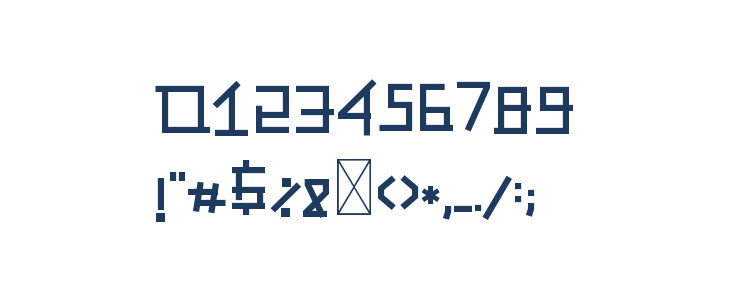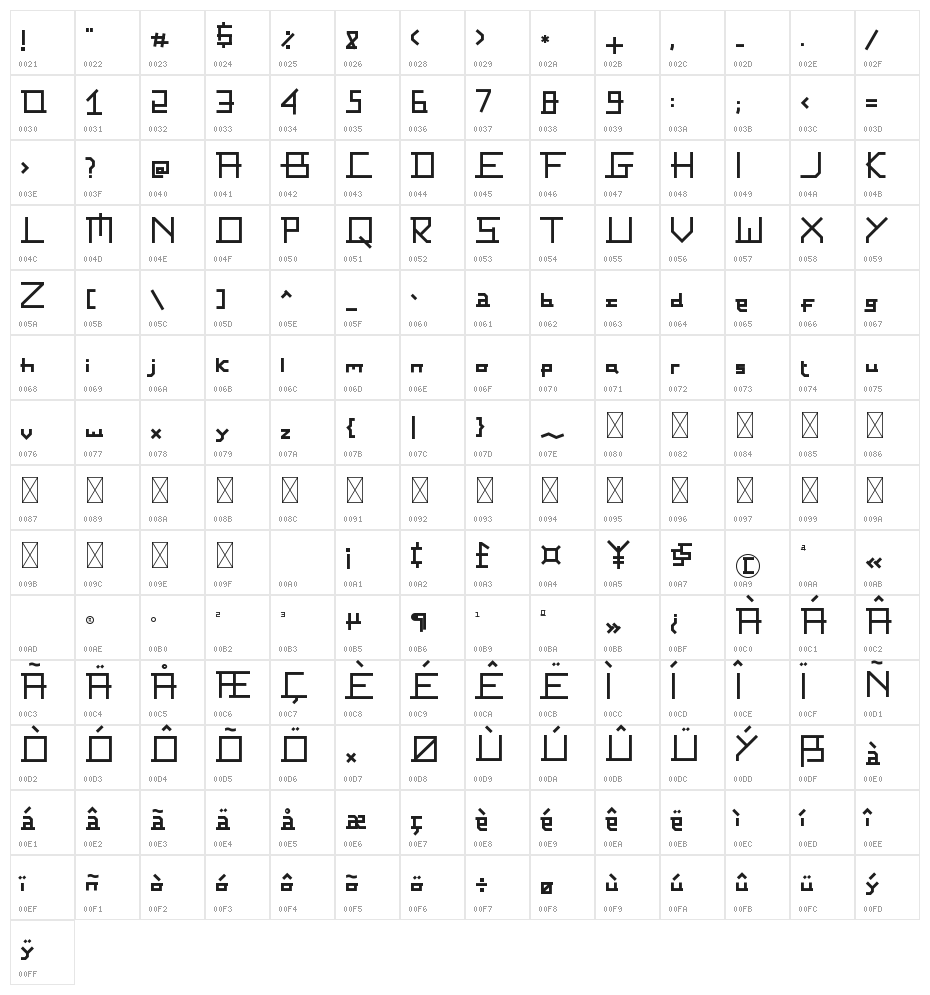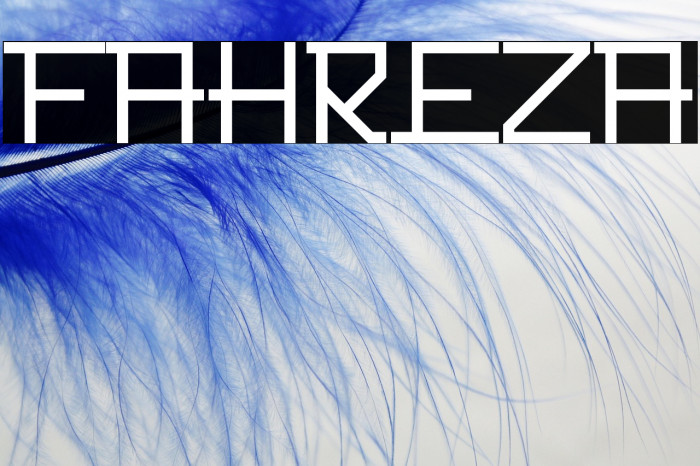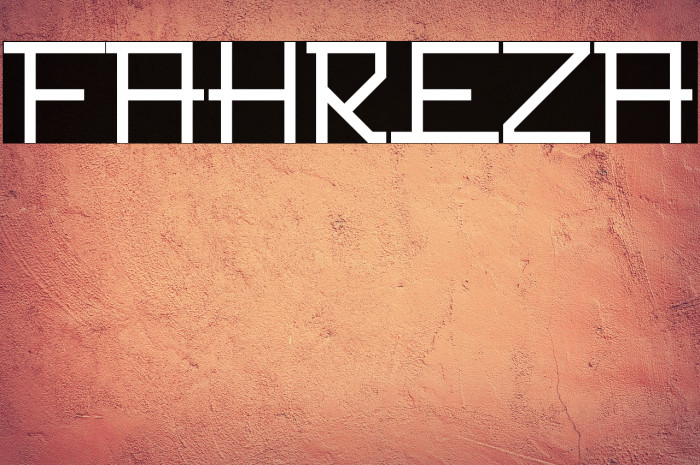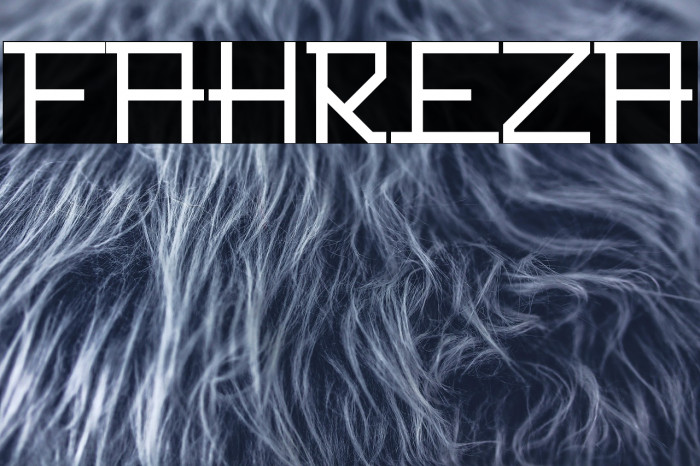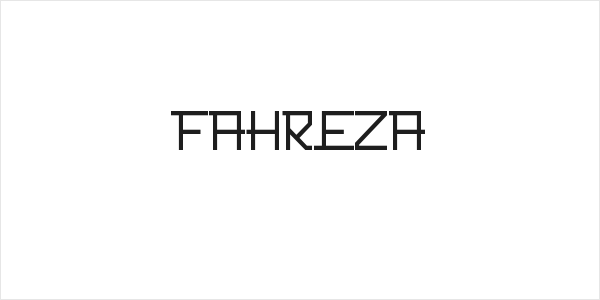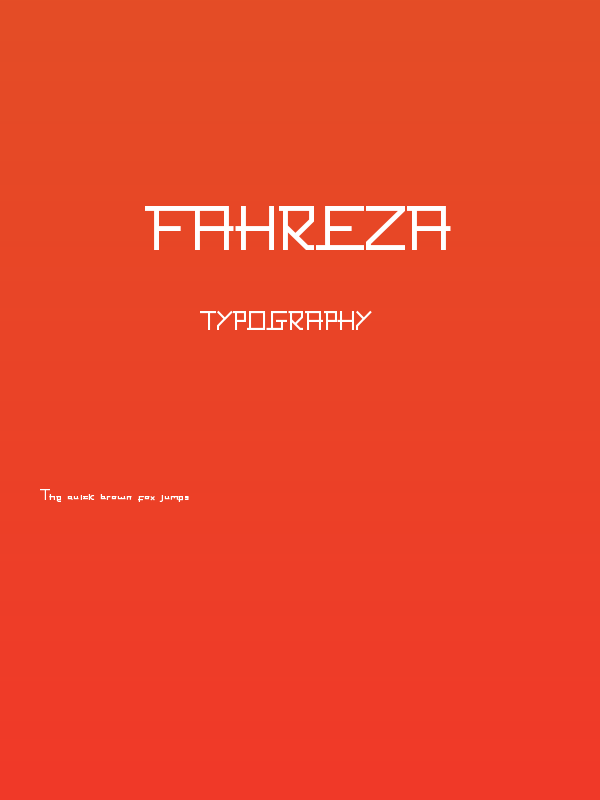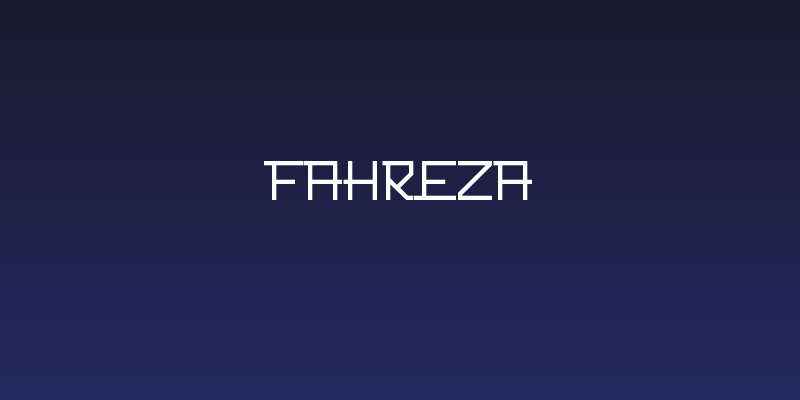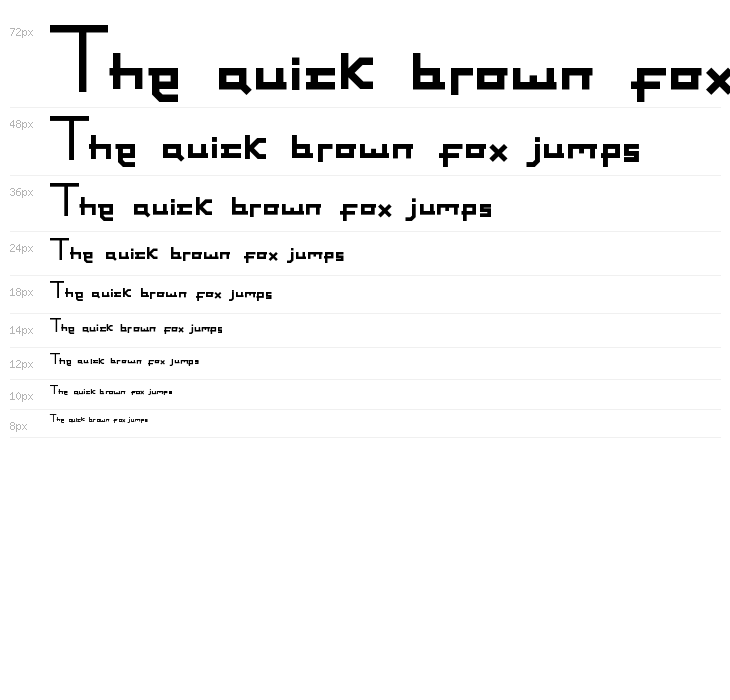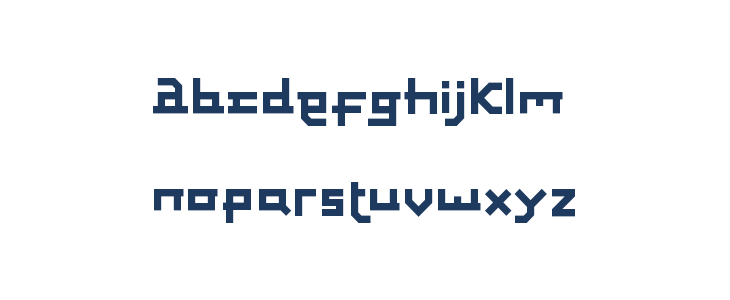
FAHREZA Font
FAHREZA Description
This font features a geometric and angular design, characterized by its sharp edges and straight lines. The uppercase letters are particularly striking, with a futuristic and digital aesthetic reminiscent of early computer graphics or pixel art. The lowercase letters maintain this angular style, providing a cohesive look across the alphabet. Numbers and special characters follow the same design principles, ensuring uniformity. The font's bold appearance makes it suitable for attention-grabbing headlines or logos, where a modern and edgy look is desired.